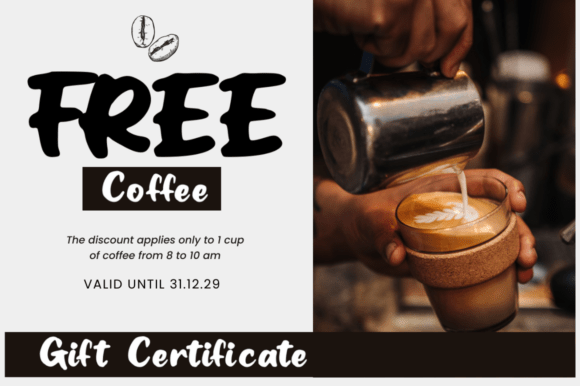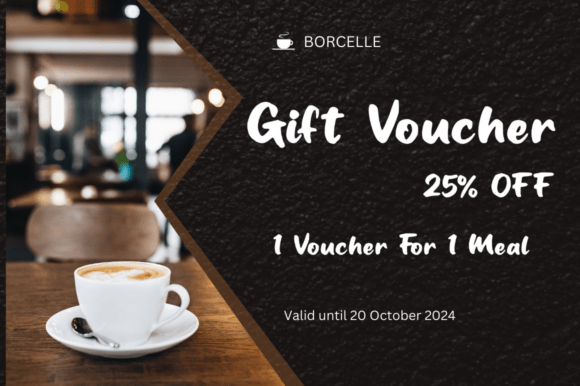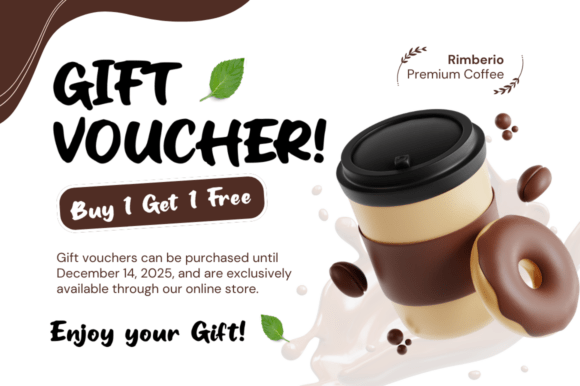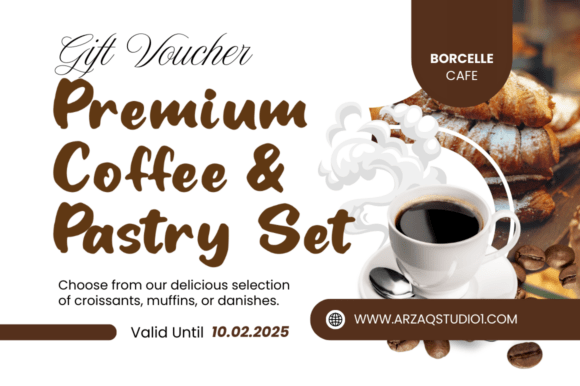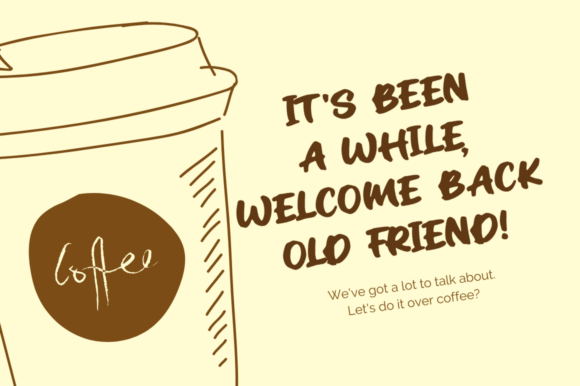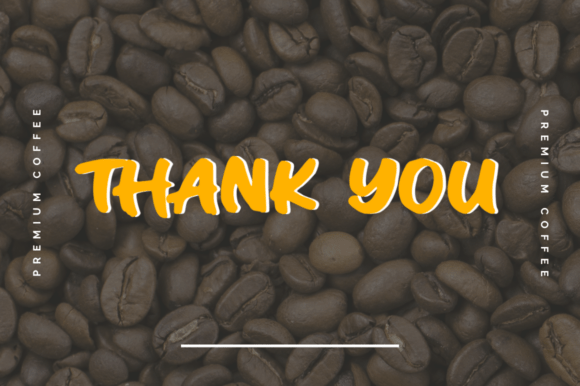
Unleashing Your Creativity with Brushbolda Font
Remember that moment when you first saw a design that made you stop and stare? The typography was bold, yet elegant; the colors were vibrant, yet harmonious. That’s the magic of great design, and it all starts with the right font. For designers looking to add a touch of personality and charm to their work, the Brushbolda Font is a game-changer.
This dynamic, thick-stroked brush script font feels hand-painted yet neat, making it perfect for headlines, posters, product packaging, or anything that needs a bit of extra oomph. With friendly curves and natural bounce, Brushbolda Font maintains readability while showcasing artistic charm. Whether you’re a seasoned pro or just starting out, this font is a valuable addition to any designer’s toolkit.
Brushbolda Font Key Features
- Unique Characteristics: The font features a distinctive brush-style design, with bold lines and subtle texture, giving it a unique and artistic feel.
- Language Support: Brushbolda Font supports a wide range of languages, including Latin, Cyrillic, and Greek scripts, making it suitable for international design projects.
- Font Weight: The font is available in three weights: Regular, Bold, and Heavy, allowing designers to choose the perfect weight for their design needs.
Brushbolda Font Review
Overall, I think the Brushbolda font has some great qualities that make it suitable for certain design projects. ✨ The bold and playful feel of the font can really add some personality to your designs, especially in headings and titles. The brush-like strokes also give it a unique, handcrafted feel that can be really appealing in the right context.
- ✨ Great for headings and titles: The Brushbolda font is perfect for adding some personality to your headings and titles. It’s bold, playful, and really stands out.
- ✨ Unique feel: The brush-like strokes of the font give it a unique, handcrafted feel that can be really appealing in the right context.
- ✨ Easy to read: Despite its bold and playful feel, the Brushbolda font is still relatively easy to read, making it a good choice for body text in certain situations.
However, there are some limitations to the Brushbolda font that should be considered. ⚠️ The font can be quite overwhelming if used in large quantities, so it’s best to use it sparingly and in moderation. Additionally, the font may not be the best choice for body text in situations where readability is a top priority.
- ⚠️ Overwhelming: The Brushbolda font can be quite overwhelming if used in large quantities, so it’s best to use it sparingly and in moderation.
- ⚠️ Not ideal for body text: While the font is easy to read, it may not be the best choice for body text in situations where readability is a top priority.
Overall, I think the Brushbolda font is a great addition to any designer’s toolkit, but it should be used judiciously and in the right context. With its bold, playful feel and unique brush-like strokes, it’s perfect for adding some personality to your designs, but it’s not a good choice for every project.
Brushbolda Font is ideal for use in creative and artistic projects, such as:
1. Handwritten-style invitations and cards.
2. Custom typography for branding and logos.
3. Artistic quotes and posters.
Remember to experiment with different font sizes, styles, and colors to get the most out of Brushbolda Font.